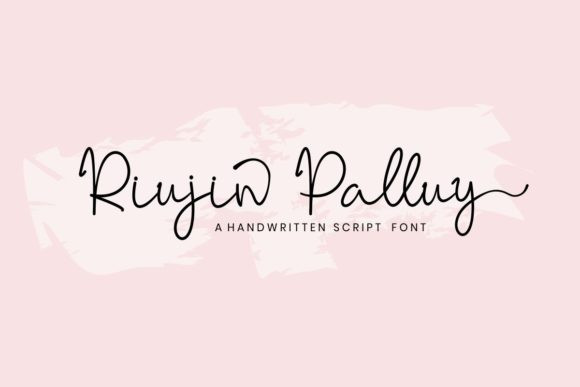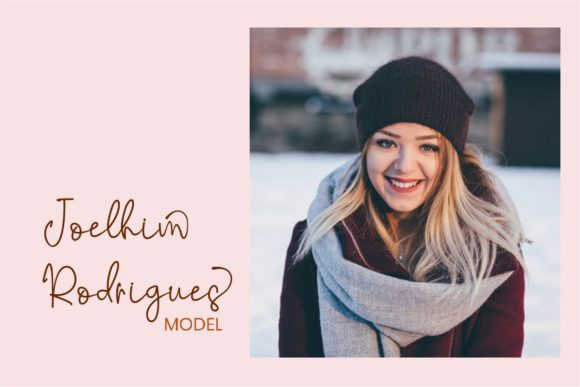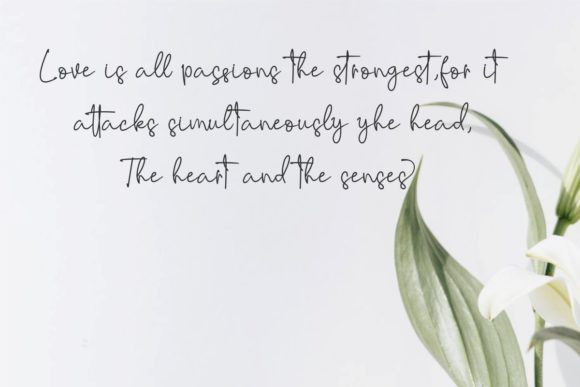
Riujin Palluy Font
Riujin Palluy is a delicate, elegant and relaxed handwritten font. It has beautiful and well balanced characters and as a result, it matches a wide pool of designs. Add it to your most creative ideas and notice how it makes them come alive!